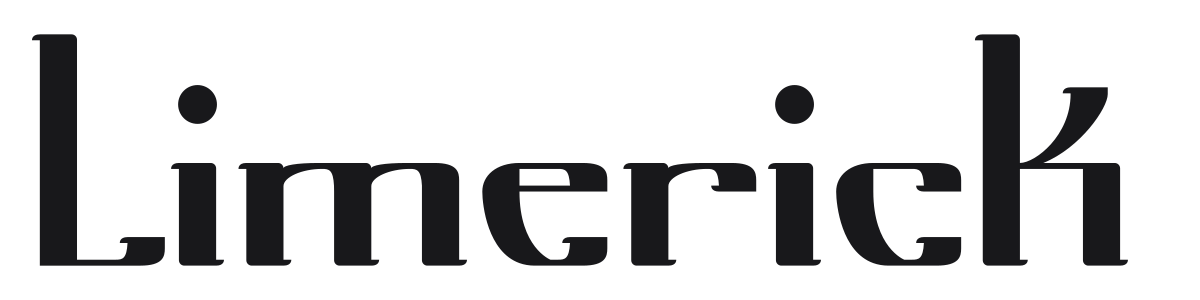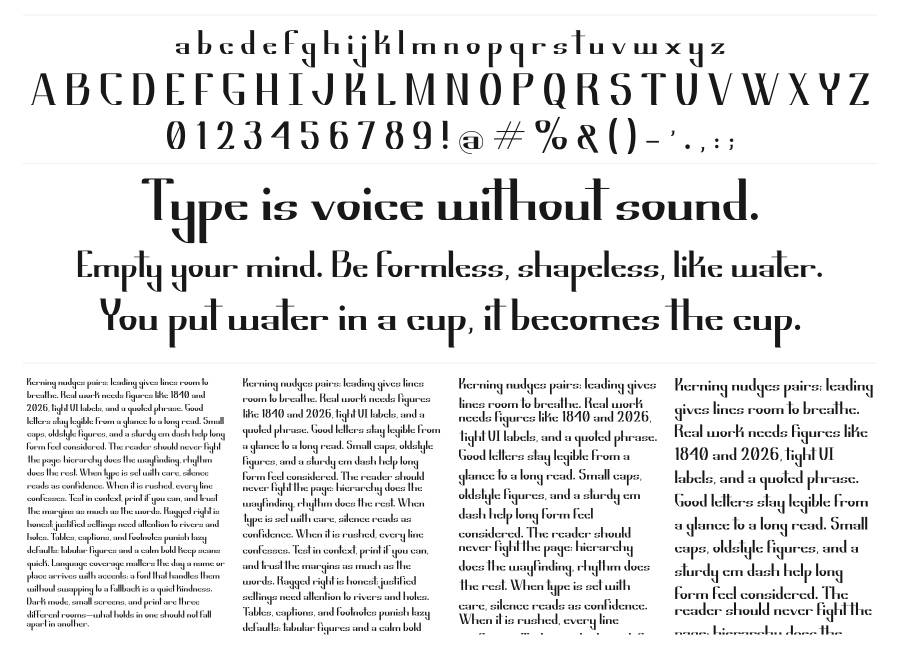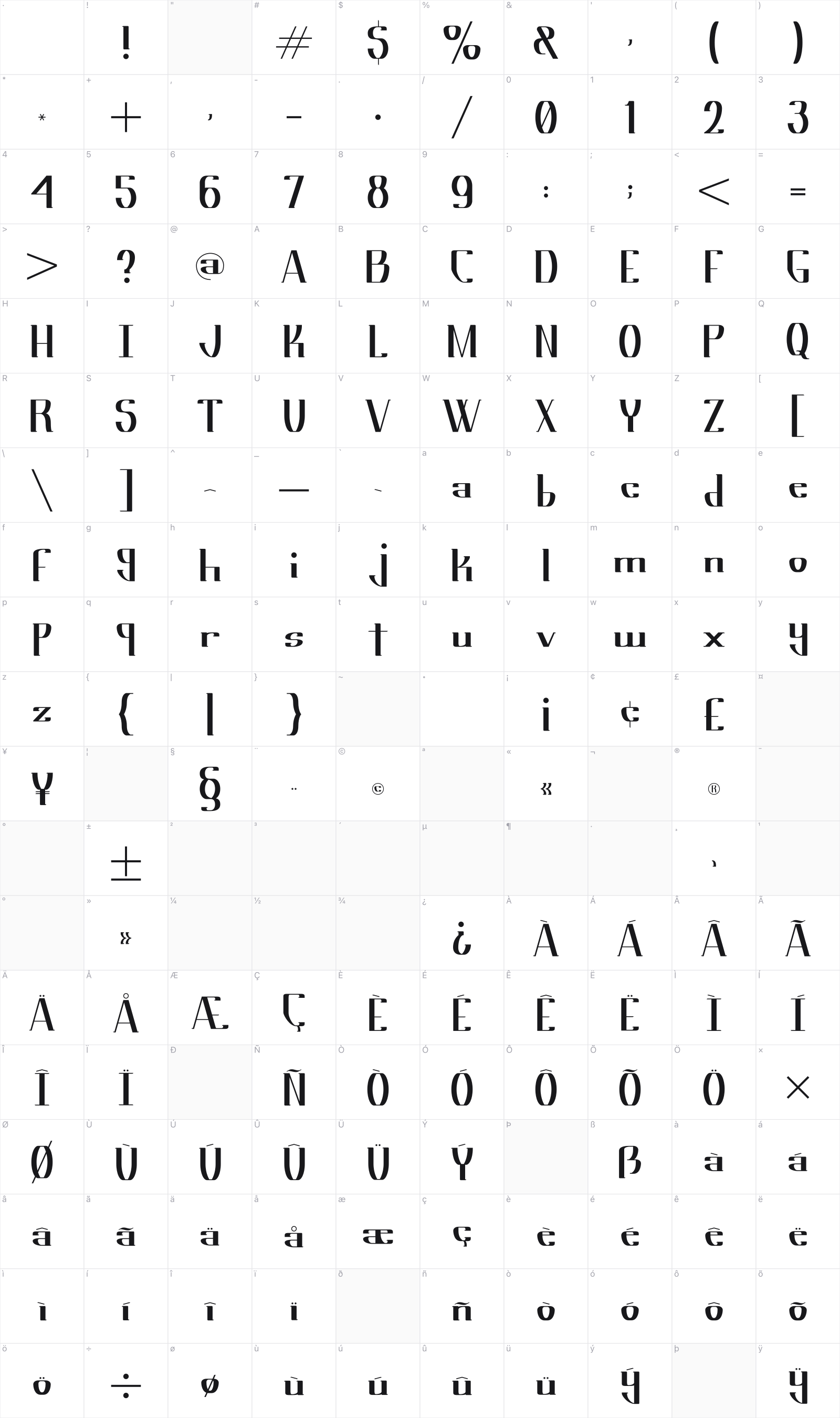
Limerick
Limerick is a bold Art Deco display serif with extreme stroke contrast and wide, confident proportions. Thick dominant stems pair with near-hairline thin strokes and decorative curved terminals that give it a vintage glamour quality. Strong at large sizes for headlines, posters, and fashion editorial work.